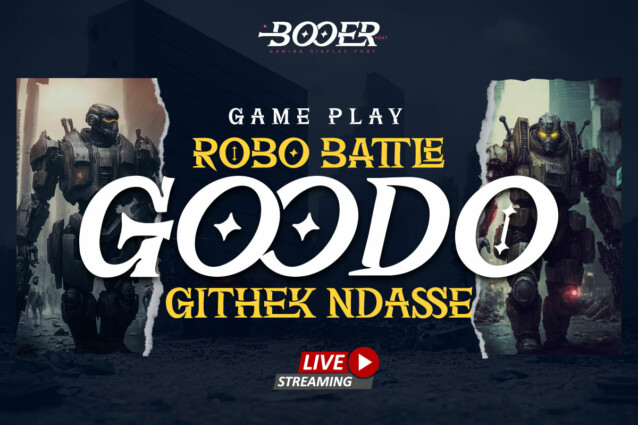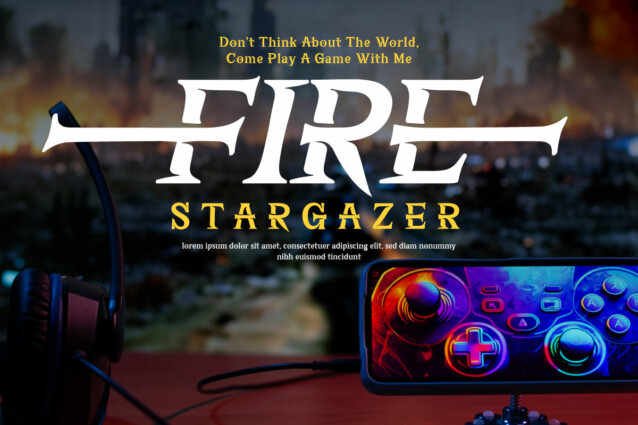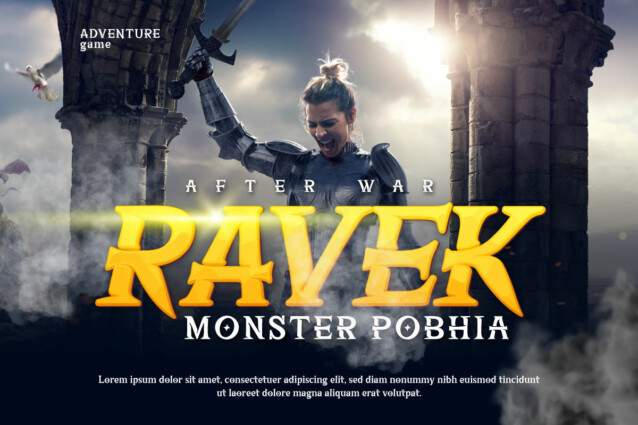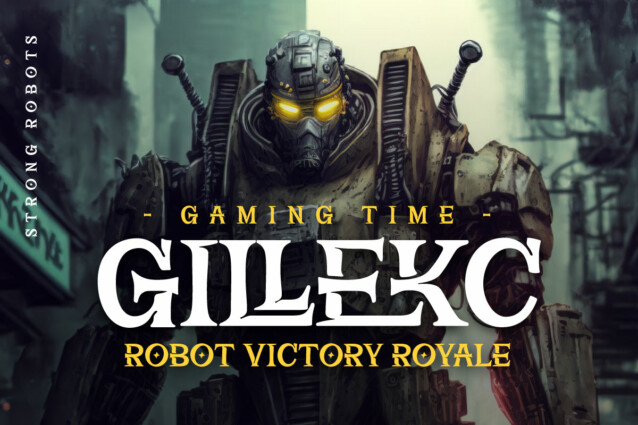
Booer Font
Booer Font is a font that reflects the power and style of the gaming world in a sharp, modern package. Booer is the perfect solution for a variety of projects that require a unique theme, whether it’s a film, game, or streaming event. Her bold and exciting style provides room for creativity to flourish.